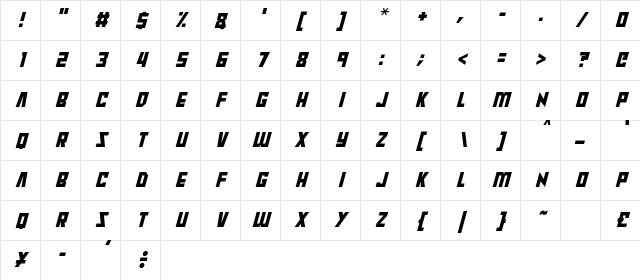
Raptors Italic Free Font
Raptors Italic
Design Context for Raptors
Raptors is a composed and adaptable typeface that performs quietly and consistently across a wide range of design contexts. The slanted form adds forward momentum and visual energy.
Pro Tip: Use Raptors for emphasis, pull quotes, and subheadings where its slanted energy can add rhythm to the layout.